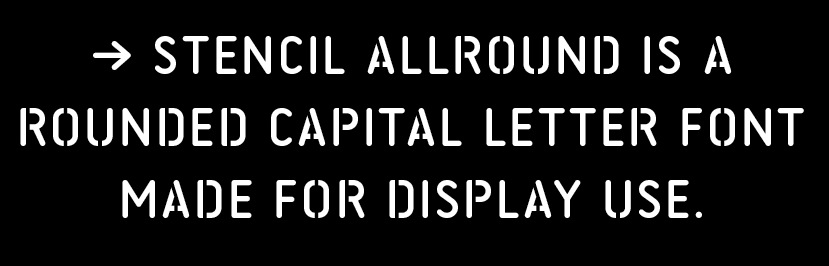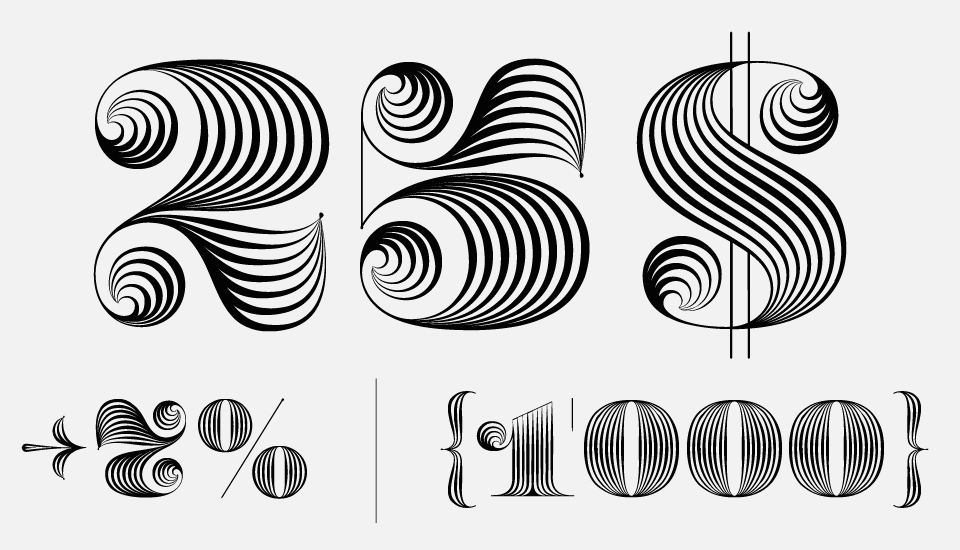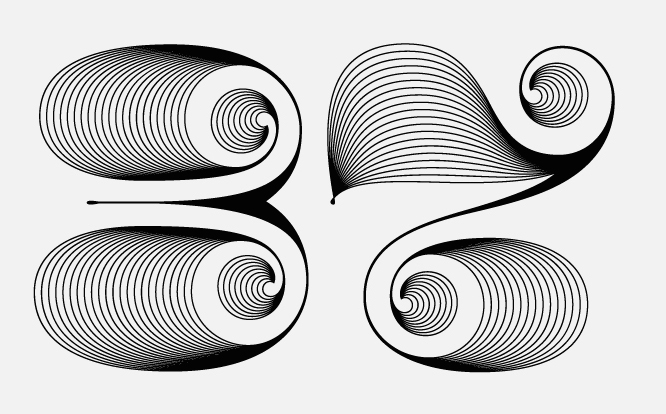
Letterwerk [Fabian Widmer]
Fabian Widmer is a Swiss type and graphic designer in Basel and Zürich, b. 1981. He graduated in 2006 from the Schüle für Gestaltung Basel, and runs Letterwerk, which he cofounded with Dominique Bößner in 2008.
His (free) fonts: Mister Pix&Junior (2004, pixel font), BlackPearl (2005, not finished), Jungle (2005, experimental) and Kreuzfahrt (2005, religious dingbats).
His Nomad (2006, a sans family) and Carrosserie (2009, a display sans influenced by the 1930s; in 2011, new styles were added) are not free.
Carrosserie showcased.
His main work in 2012 is the six-layer stacking display family Modular Roman and Slab.
In 2014, they made Stencil Allround.
Typefaces from 2015: Nord (a typeface family with Inline, Form, Black and Sun styles; the beveled subfont is especially wonderful).
Typefaces from 2016: Fab Figures (several sets of decorative numerals).